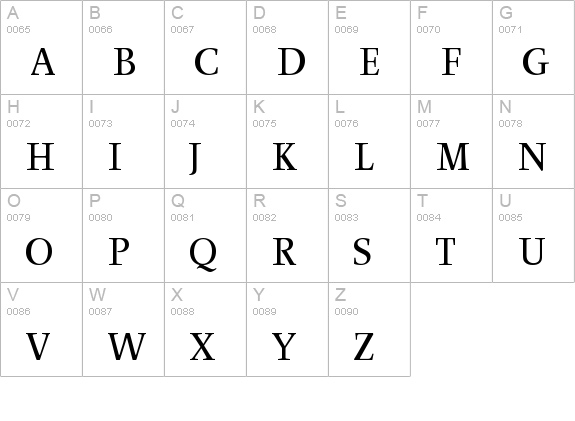
SullyJonquieres MN font is a stunning display typeface that exudes elegance and sophistication. With its unique combination of sleek lines and graceful curves, this font is perfect for adding a touch of class to any design project. Whether you're creating a logo, branding materials, or a stylish website, SullyJonquieres MN font will make your text stand out beautifully. What's even better is that SullyJonquieres MN font is available for free download at FontsMarket.com. This means you can elevate your designs without breaking the bank. Don't miss out on the opportunity to add this gorgeous font to your collection and take your projects to the next level. Download SullyJonquieres MN font today and let your creativity shine!